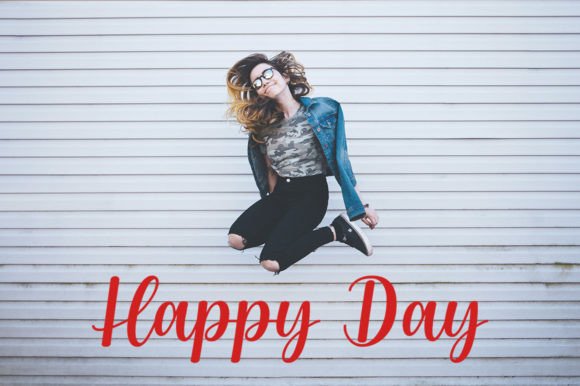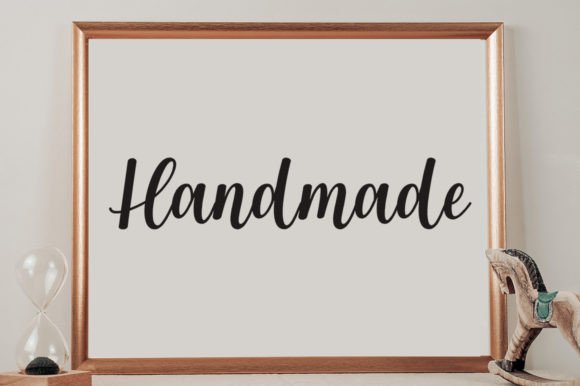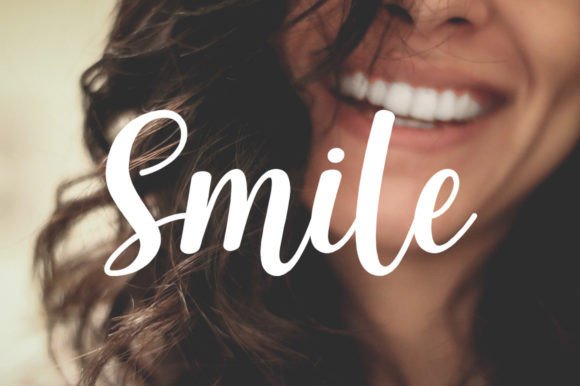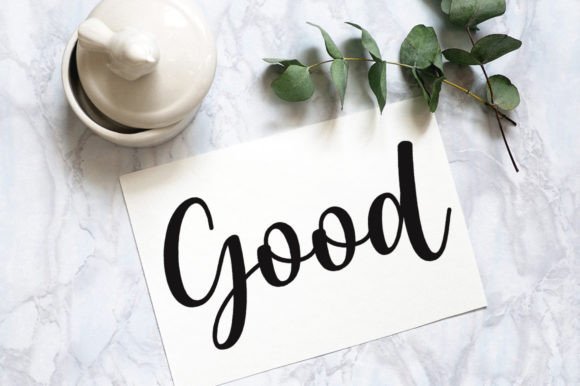
Wonderland Font
The Wonderland Font Download is a graceful modern calligraphy script designed to bring beauty and sophistication to your projects. With its elegant rhythm and flowing curves, it helps create compositions that feel timeless and classy. Because it is PUA encoded, you can easily access all glyphs, swashes, and alternates for full customization.
A Graceful Calligraphy Script with Elegance
Wonderland combines the romantic appeal of calligraphy with a modern touch. Unlike plain fonts, this Wonderland script font feels fluid and artistic while staying legible. As a result, it is perfect for projects that need both creativity and refinement.
Invitations and cards deserve to look beautiful and memorable. The Wonderland Font is an excellent choice for wedding invitations, holiday greetings, and thank you notes. Moreover, its handwritten strokes ensure that every design carries a warm and personal touch.
Branding and Logo Design with Wonderland Font
Typography is vital in branding, and this font gives businesses a polished, stylish identity. The Wonderland handwritten font works well for logos, product packaging, and promotional campaigns. In addition, it creates a graceful brand image that appeals to modern audiences.
Posters, Websites, and Creative Designs
Large projects like posters, banners, and magazine titles benefit from the Wonderland Font Download. It maintains elegance even in large-scale displays. Furthermore, it integrates beautifully into websites and digital layouts, offering designers flexibility across multiple platforms.
Social Media and Digital Content
Wonderland is also perfect for digital creators. For example, it enhances Instagram posts, Pinterest graphics, YouTube thumbnails, and blogs. The Wonderland typeface adds class and character, making your digital presence stand out.
Why Designers Choose Wonderland Typeface
Designers prefer fonts that are stylish but easy to work with. Many calligraphy scripts lose readability at smaller sizes, but the Wonderland handwritten script stays clear without losing its beauty. Its PUA encoding also allows for creative glyph combinations, making it even more versatile.